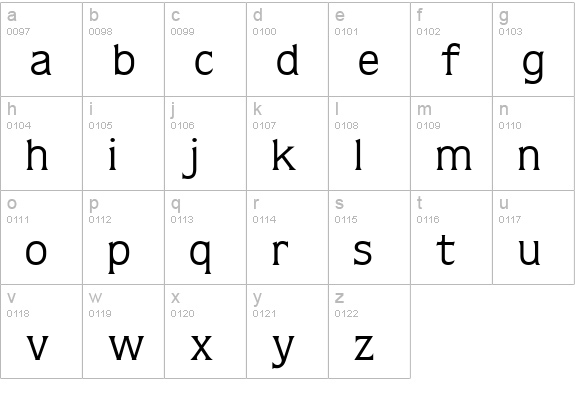
Quorum Regular Font Details
Quorum Regular is the standard, neutral variant in the Quorum typeface family \xE2\x80\x94 well suited to general body text, paragraphs, and standard typographic work.
Quorum Regular font is a versatile typeface that offers a perfect balance between elegance and readability. It is a timeless font that can be used for a wide range of design projects, from print materials to digital platforms. With its clean and crisp letterforms, Quorum Regular font exudes professionalism and sophistication. It is a versatile font that can be used for both headlines and body text, making it a great choice for any project. One of the best things about Quorum Regular font is that it is free. Yes, you heard it right! This amazing font is freely available to download at FontsMarket.com. It offers designers, creatives, and enthusiasts the opportunity to enhance their projects without any cost. Whether you are designing a logo, creating a brochure, or working on a website, Quorum Regular font will elevate your design to a whole new level. Its timeless appeal and versatility make it a popular choice among designers worldwide. Don't miss out on the opportunity to download Quorum Regular font for free at FontsMarket.com. It is the perfect addition to your font library, offering you endless possibilities for your creative endeavors. Embrace the elegance and sophistication of Quorum Regular font and let your designs shine.